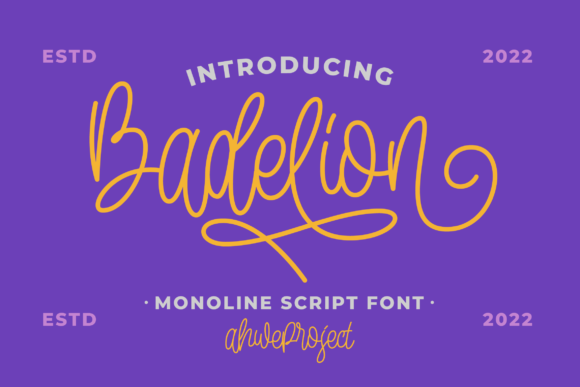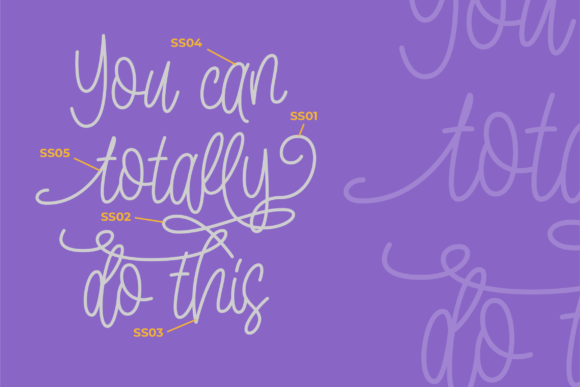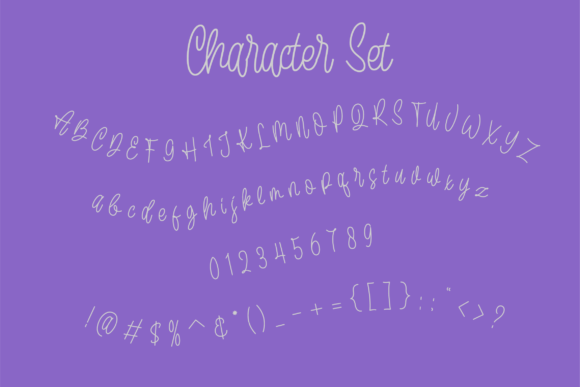
About Badelion Font
Badelion is a thin lettered, stylish and delicate script font. This gentle font will look gorgeous on a variety of design ideas. It will add a joyful and romantic touch to each of your projects!